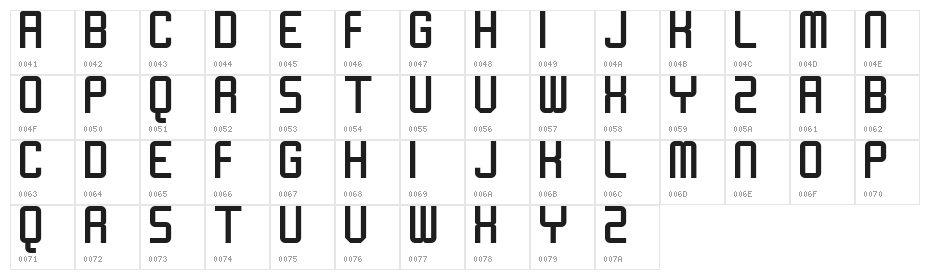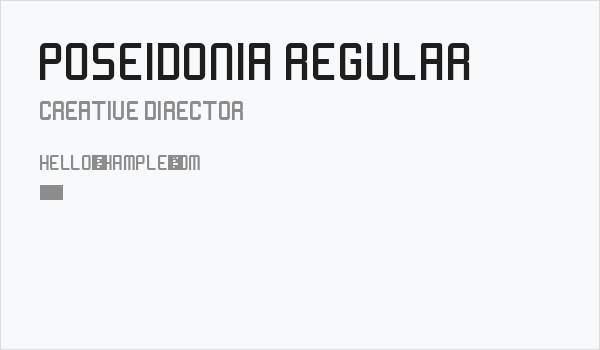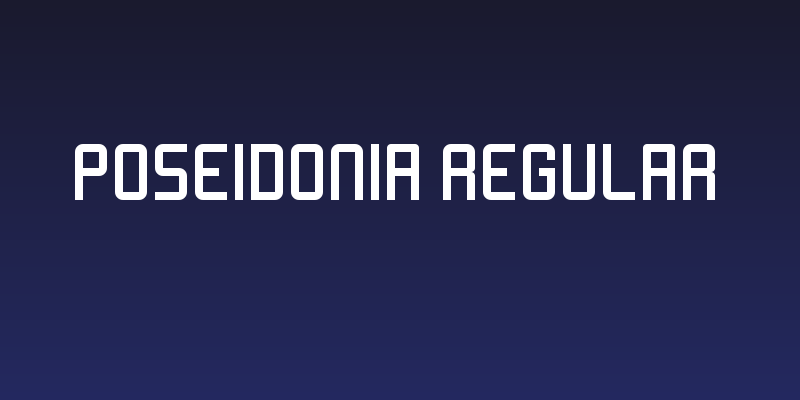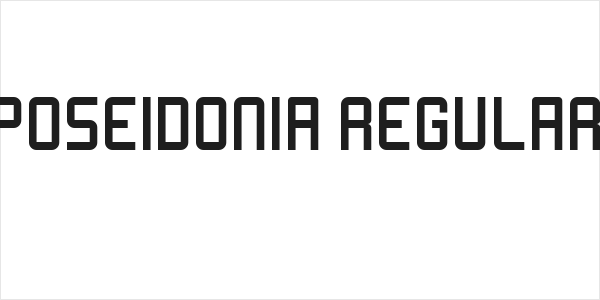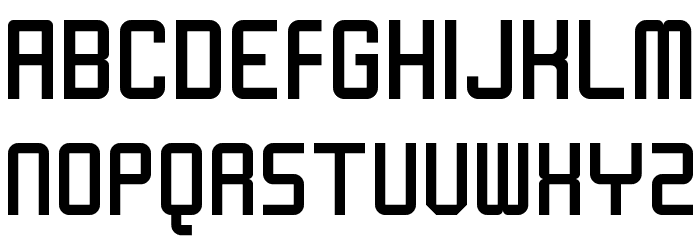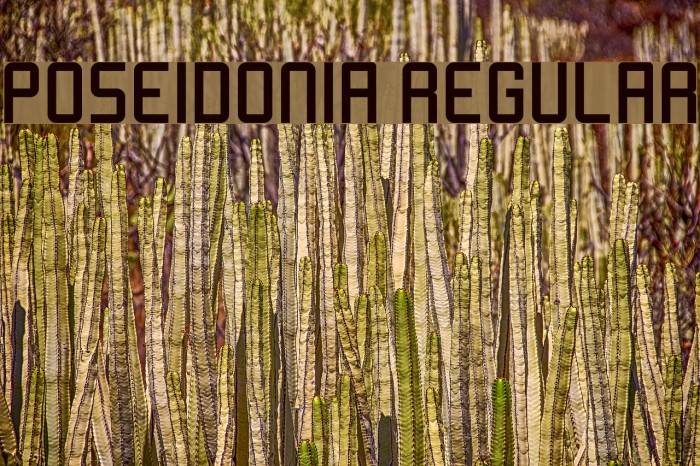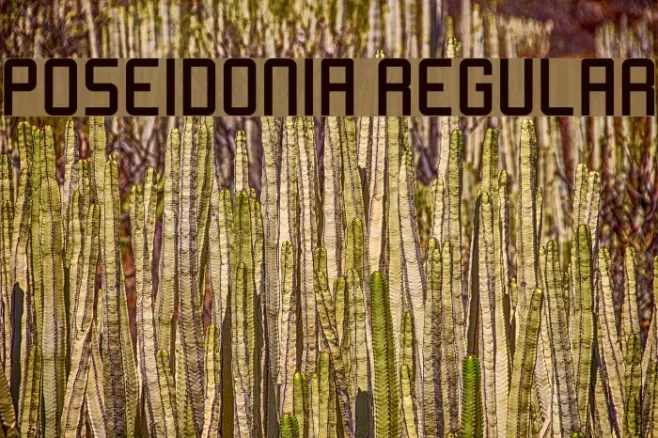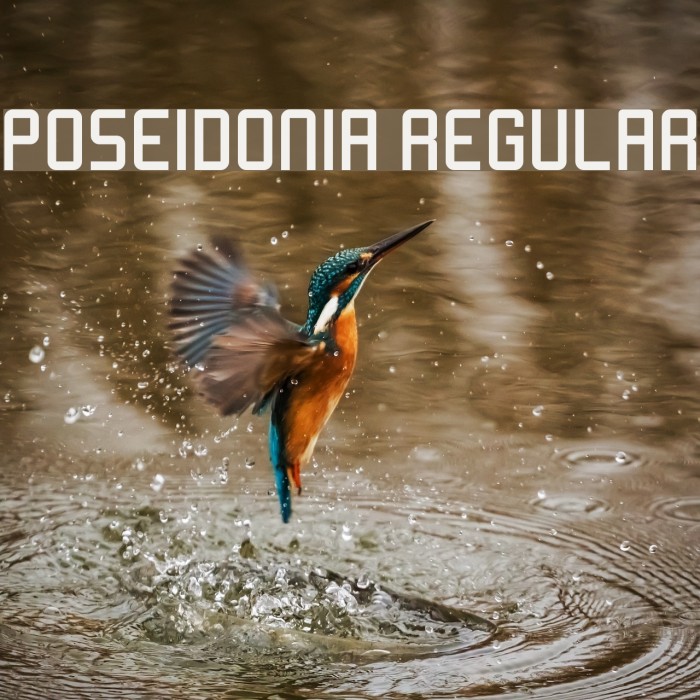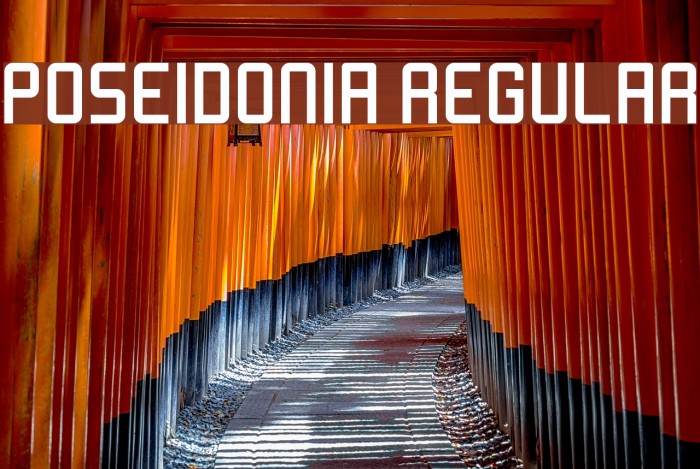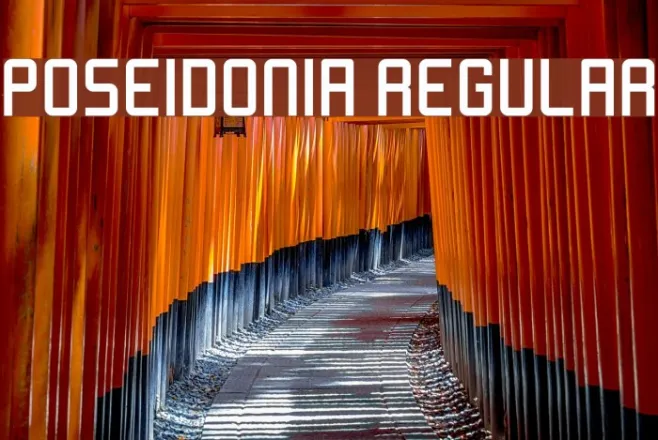
Poseidonia Regular Font
Poseidonia Regular Description
This font features a geometric and modern design with clean, straight lines and a consistent stroke width. The characters are bold and have a slightly condensed appearance, giving them a strong presence on the page. The uppercase letters are uniform in height, while the lowercase letters maintain a similar width, ensuring readability and balance. The font's design is minimalistic, with a focus on clarity and simplicity, making it suitable for various applications where a contemporary and professional look is desired. The numerals and special characters are designed to match the overall aesthetic, providing a cohesive appearance across all text elements.
| Proposed Projects | Ideal for branding, signage, posters, and digital media where a modern and professional look is required. |